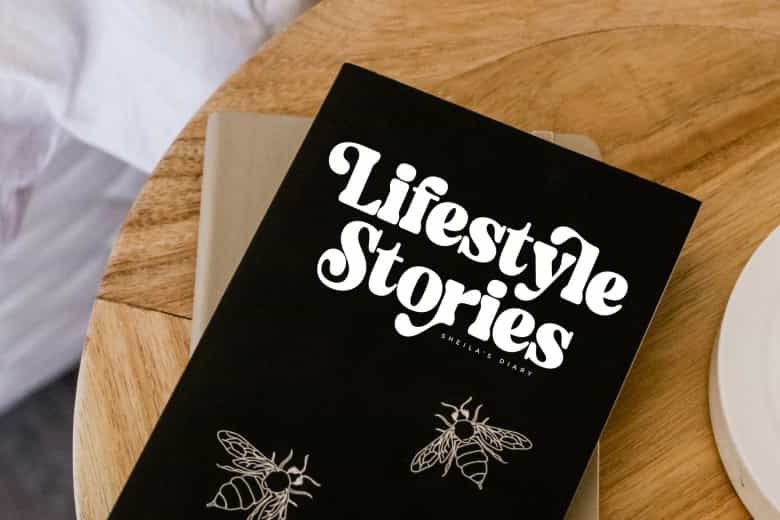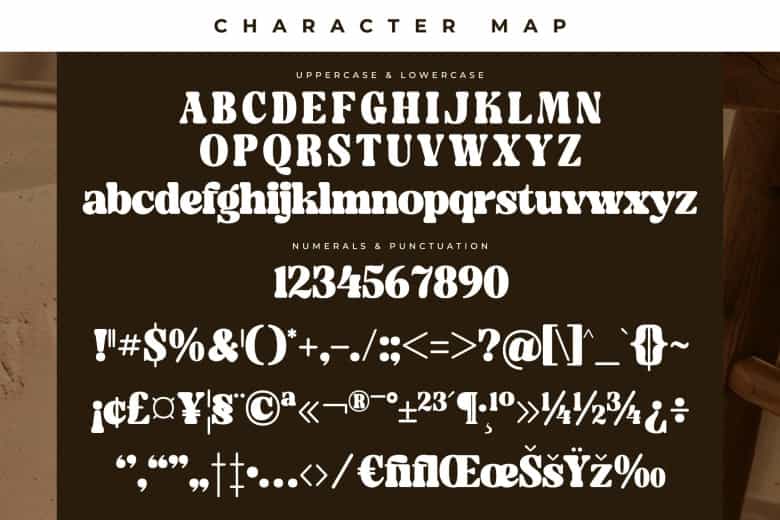
Midnight Gelactic is an elegant and modern Retro serif typeface, which blends sophisticated features with contemporary flare. With clean lines and balanced proportions, Midnight Gelactic makes an excellent choice for editorial designs logos branding or signage projects – its timeless charm adds grace and class to any design project.